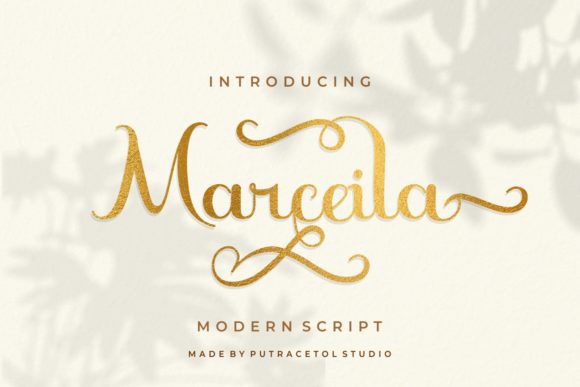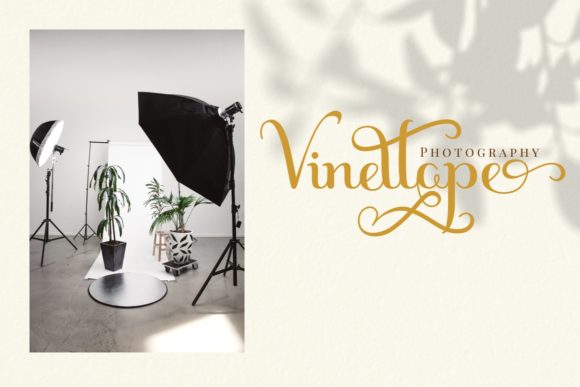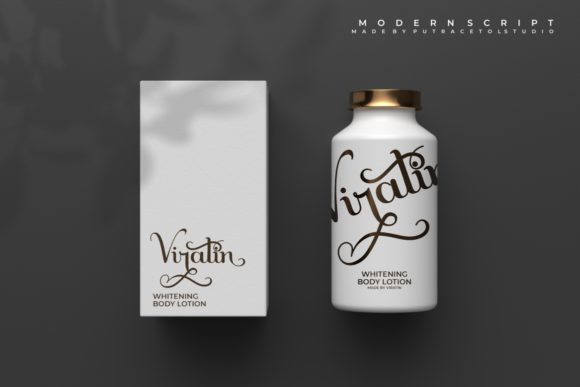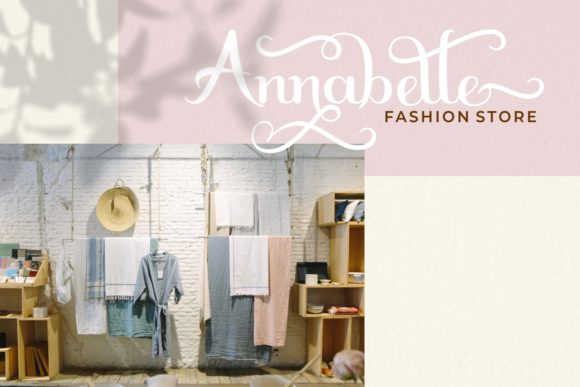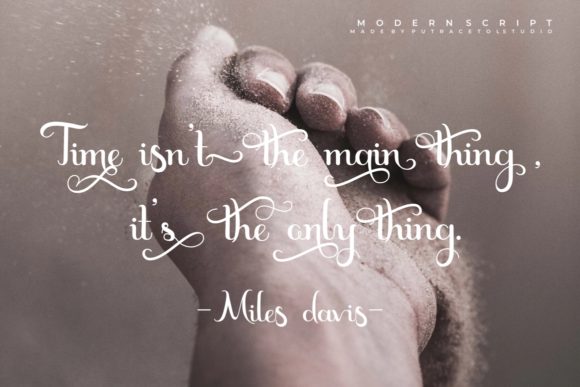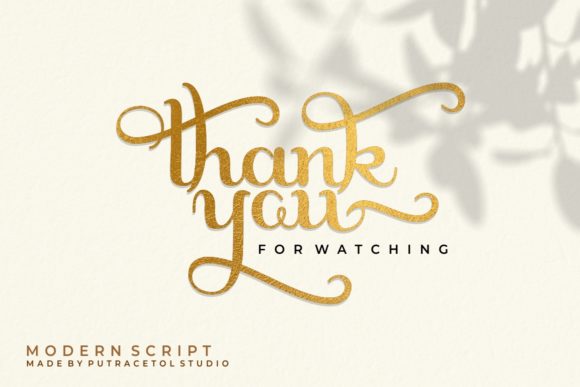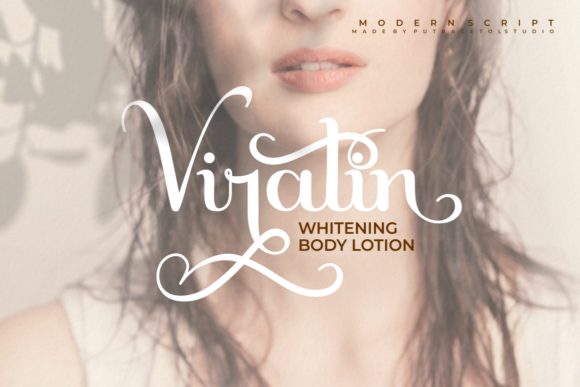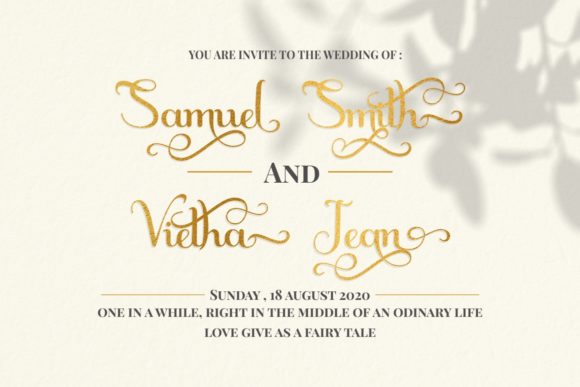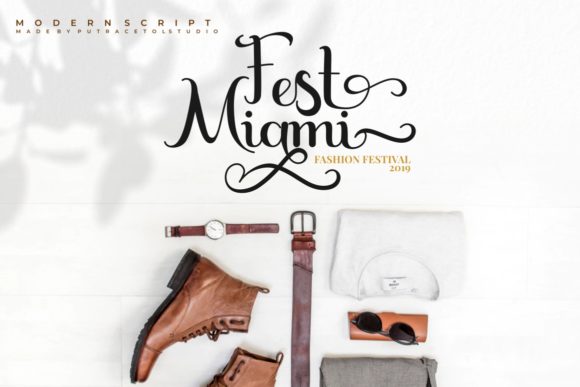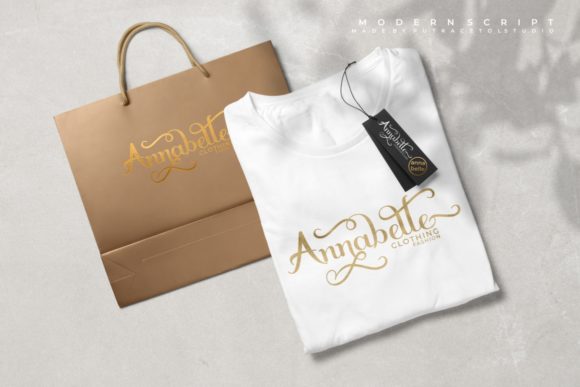
Marceila Font
About Marceila Font
Marceila is a modern script font with a lot of alternate characters and unique flourishes. It will add a romantic touch to any crafting project!